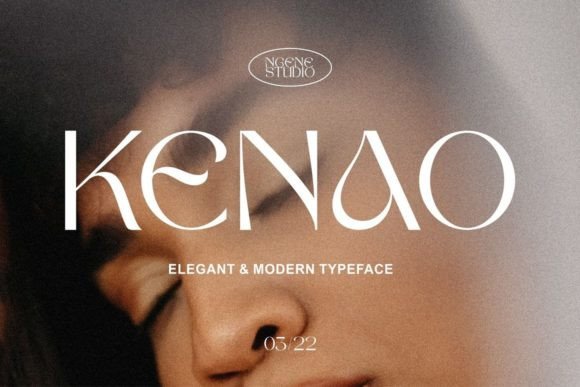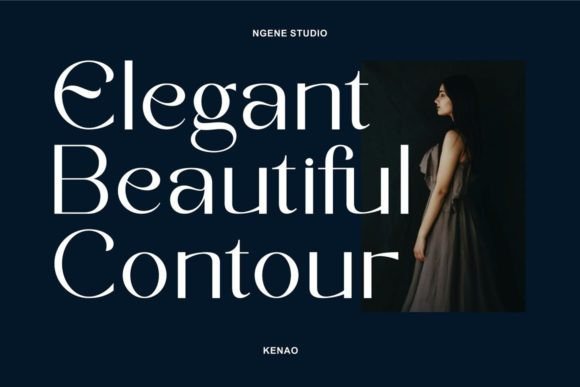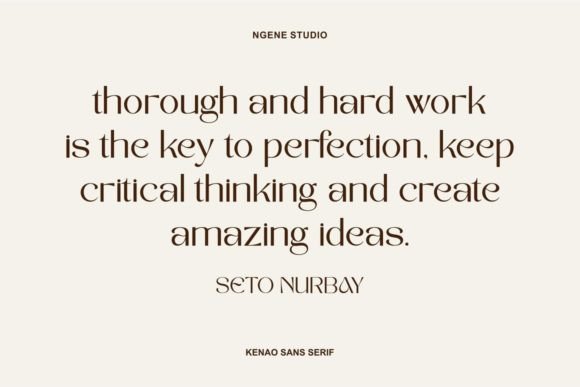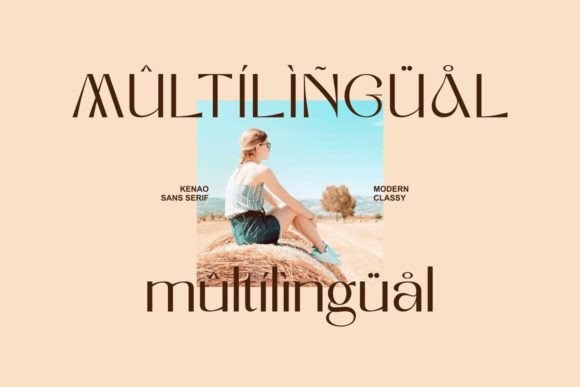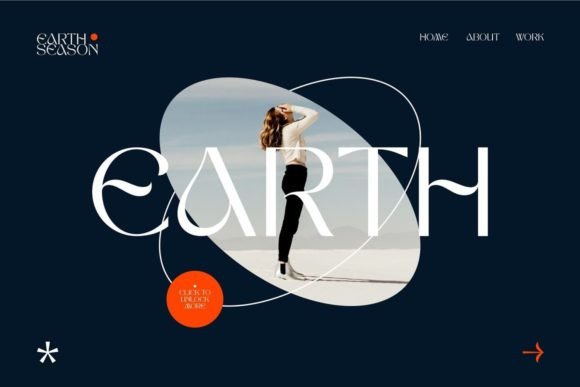
Kenao Font
Kenao is a stylish and elegant sans serif font with a feminine energy. Chic and charming, this font is suitable for a wide range of trendy designs.